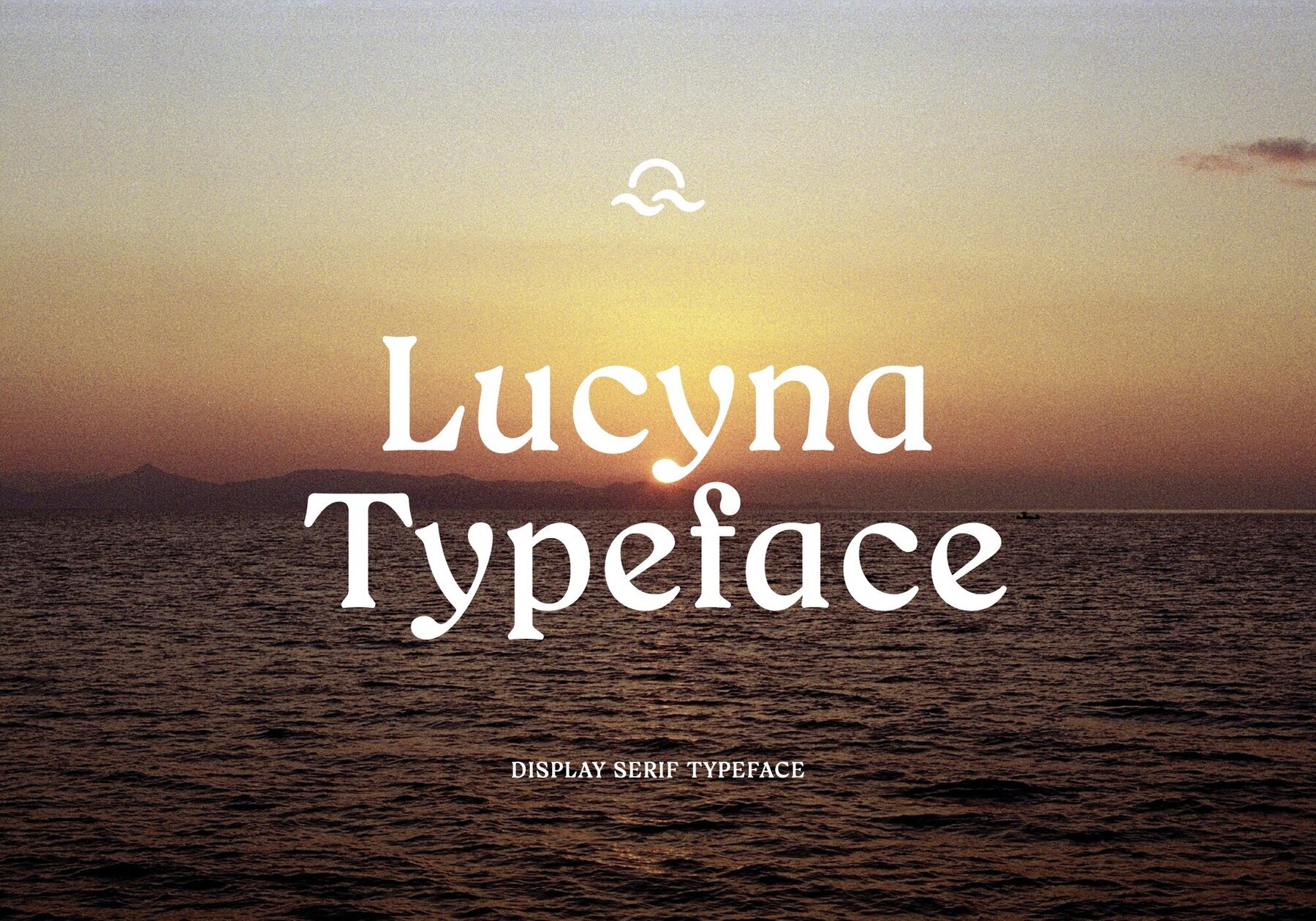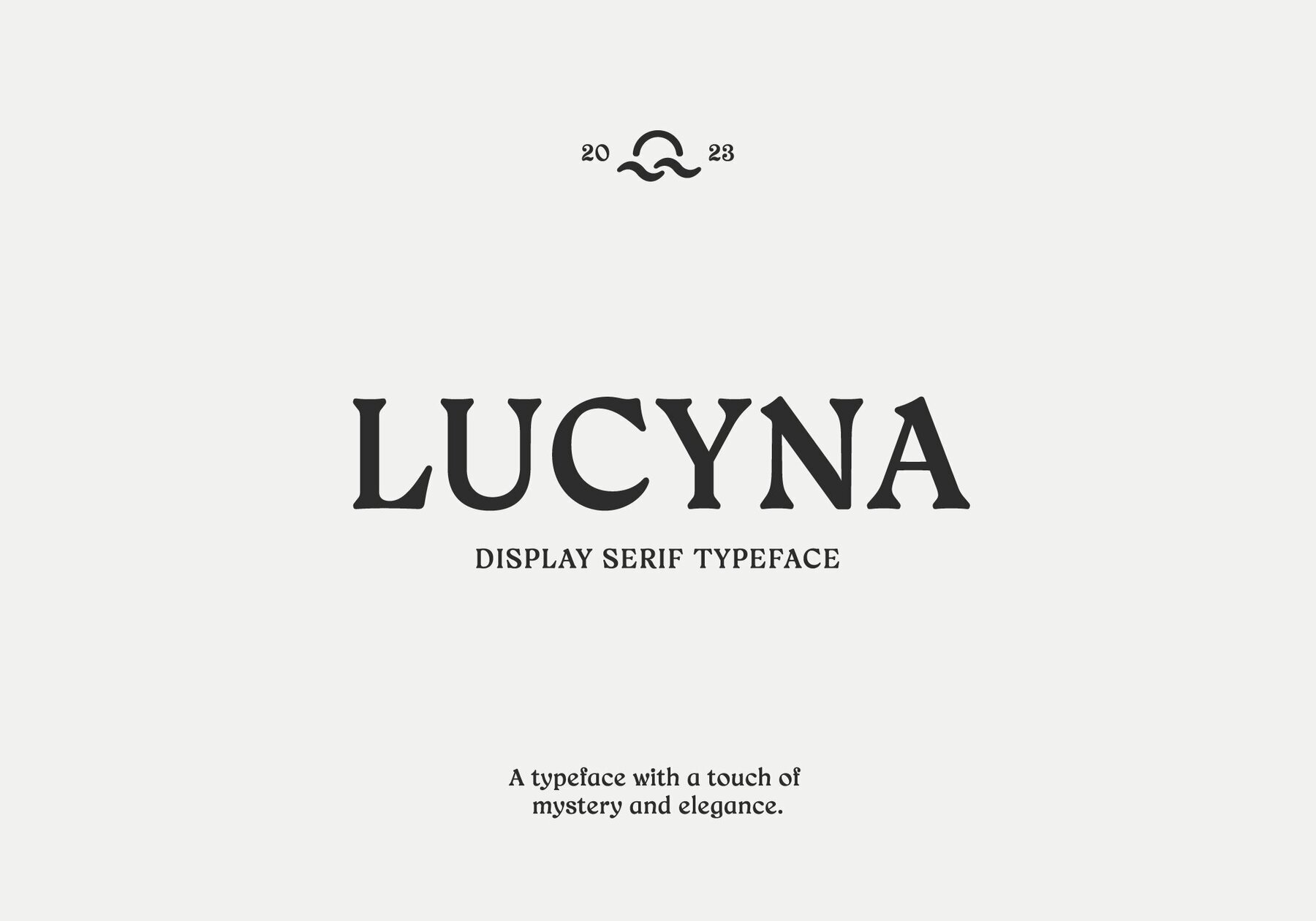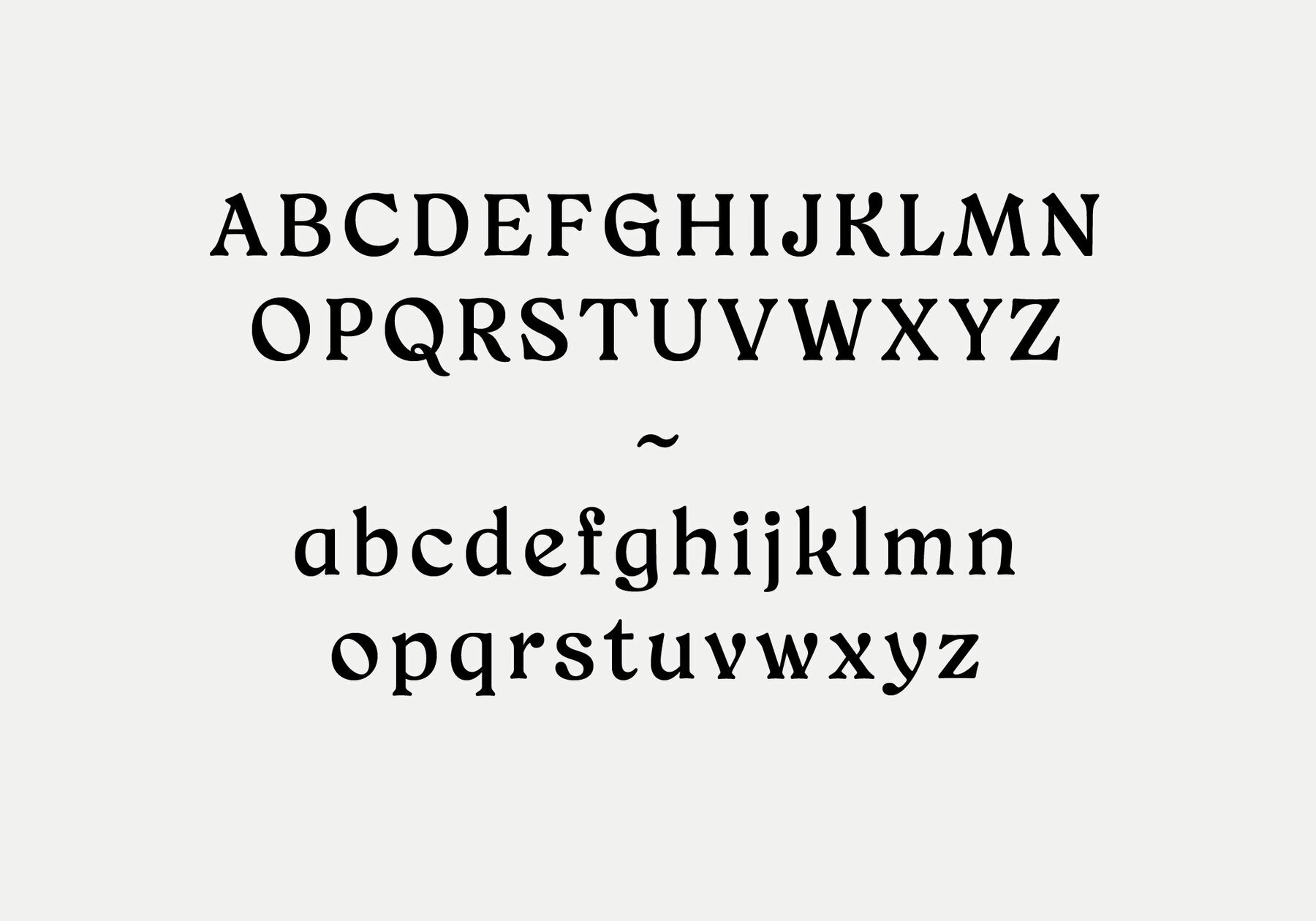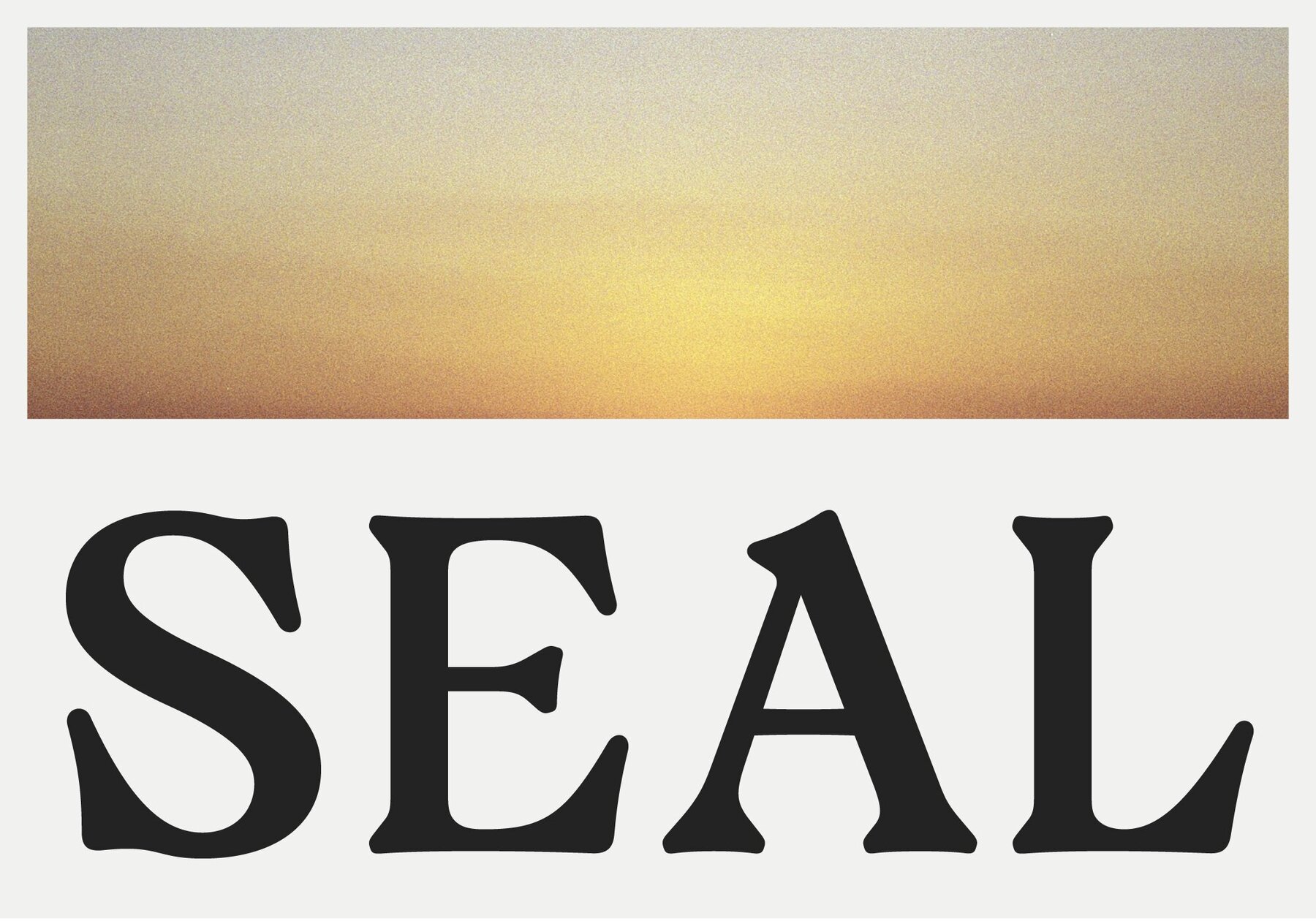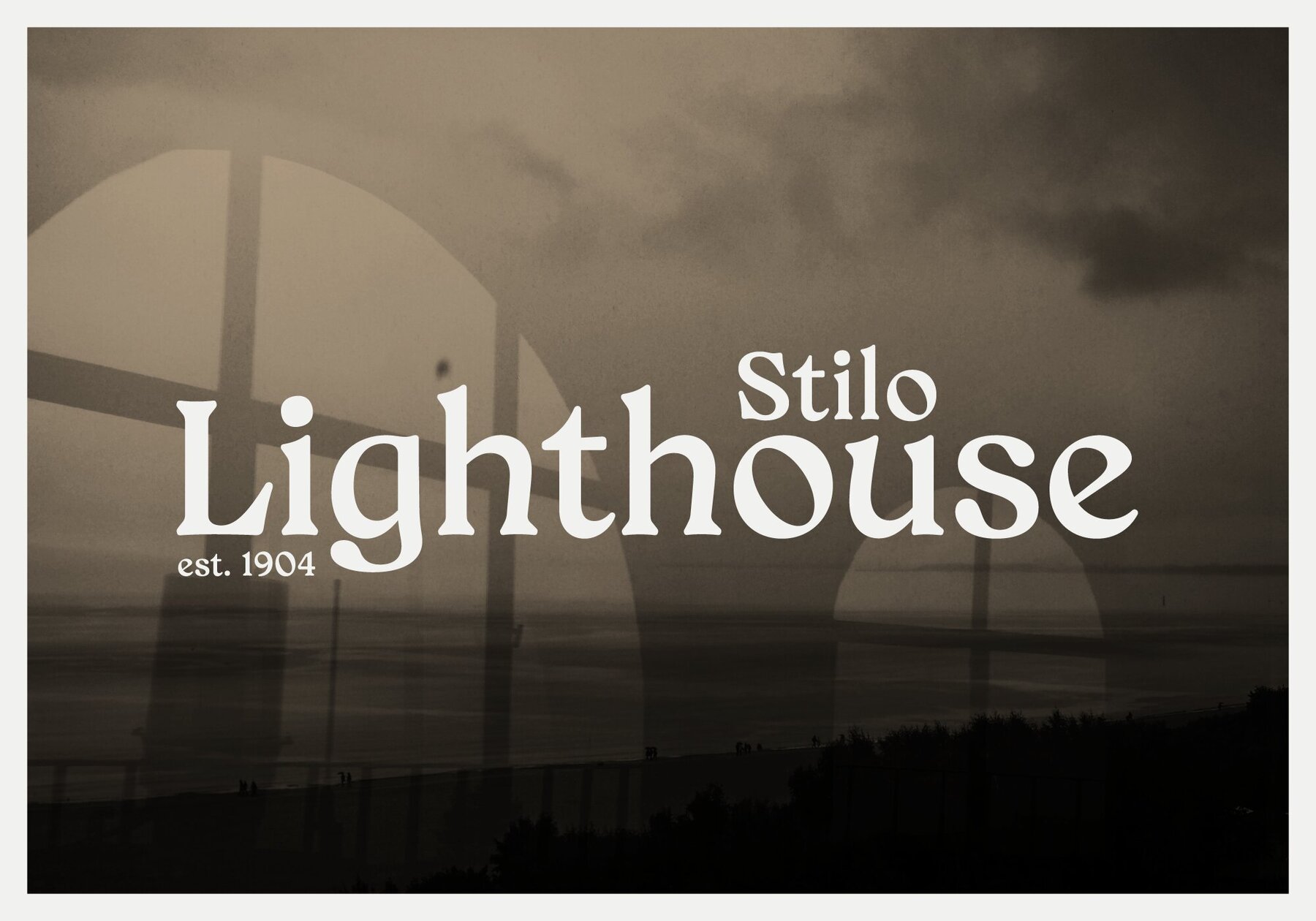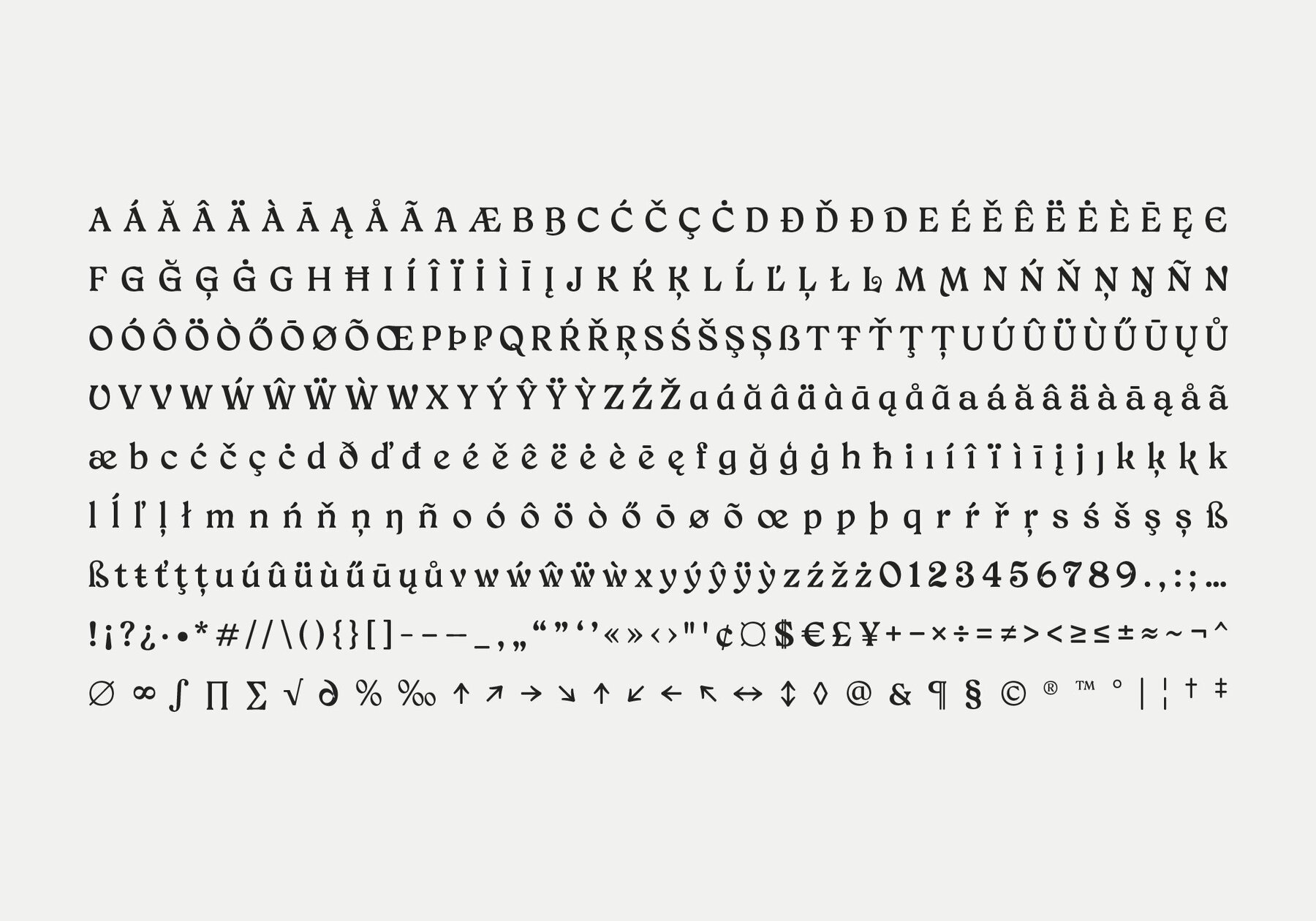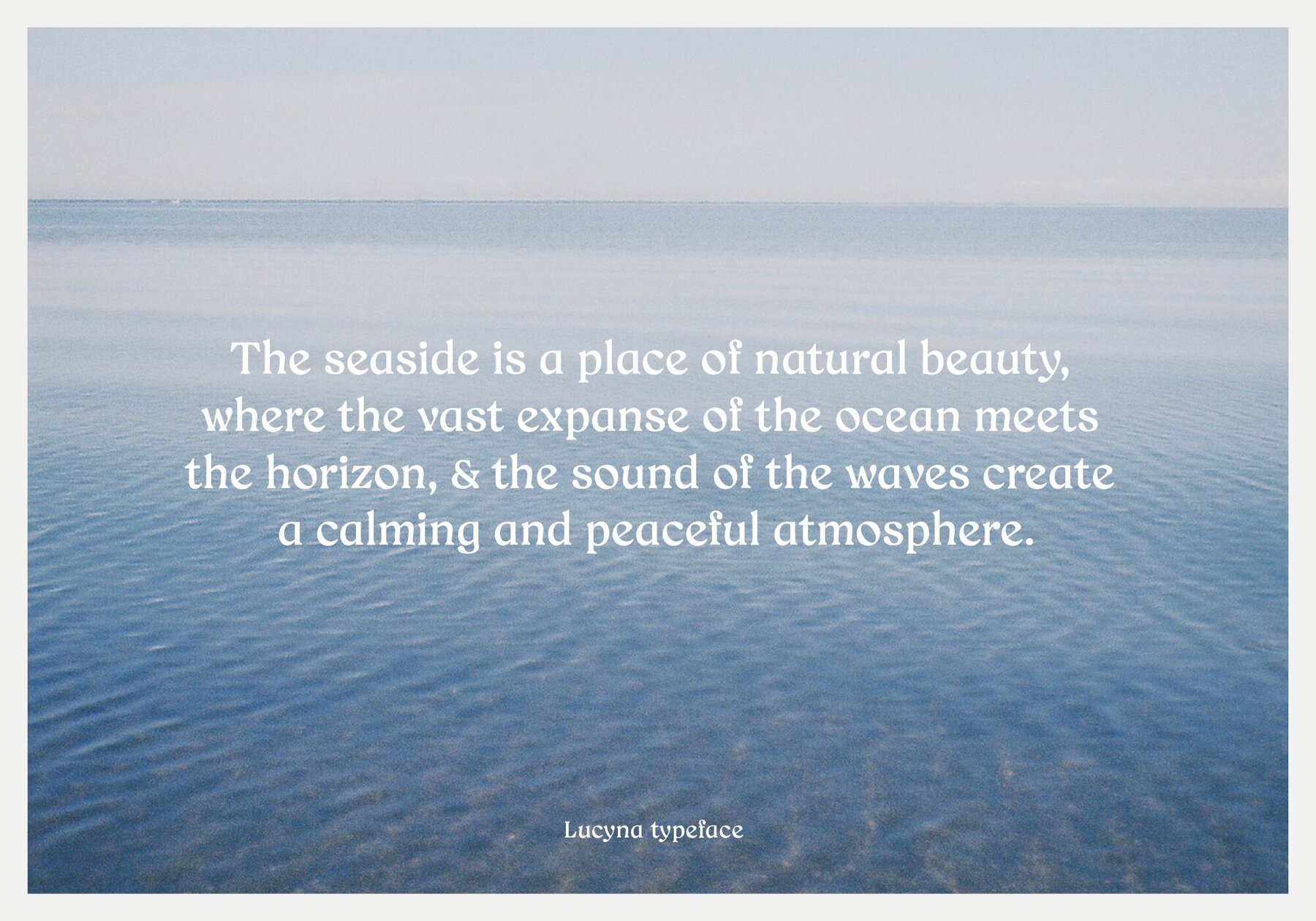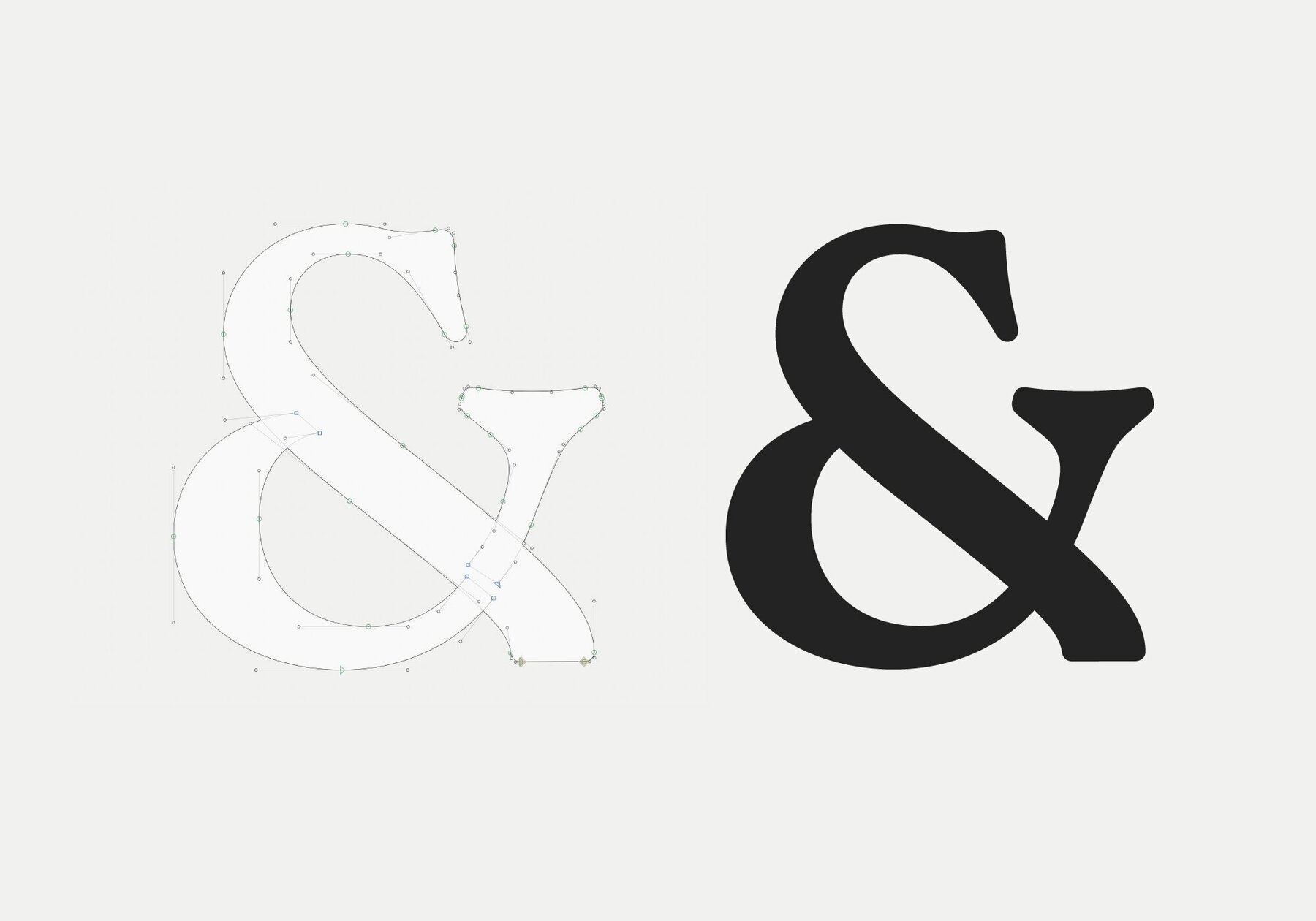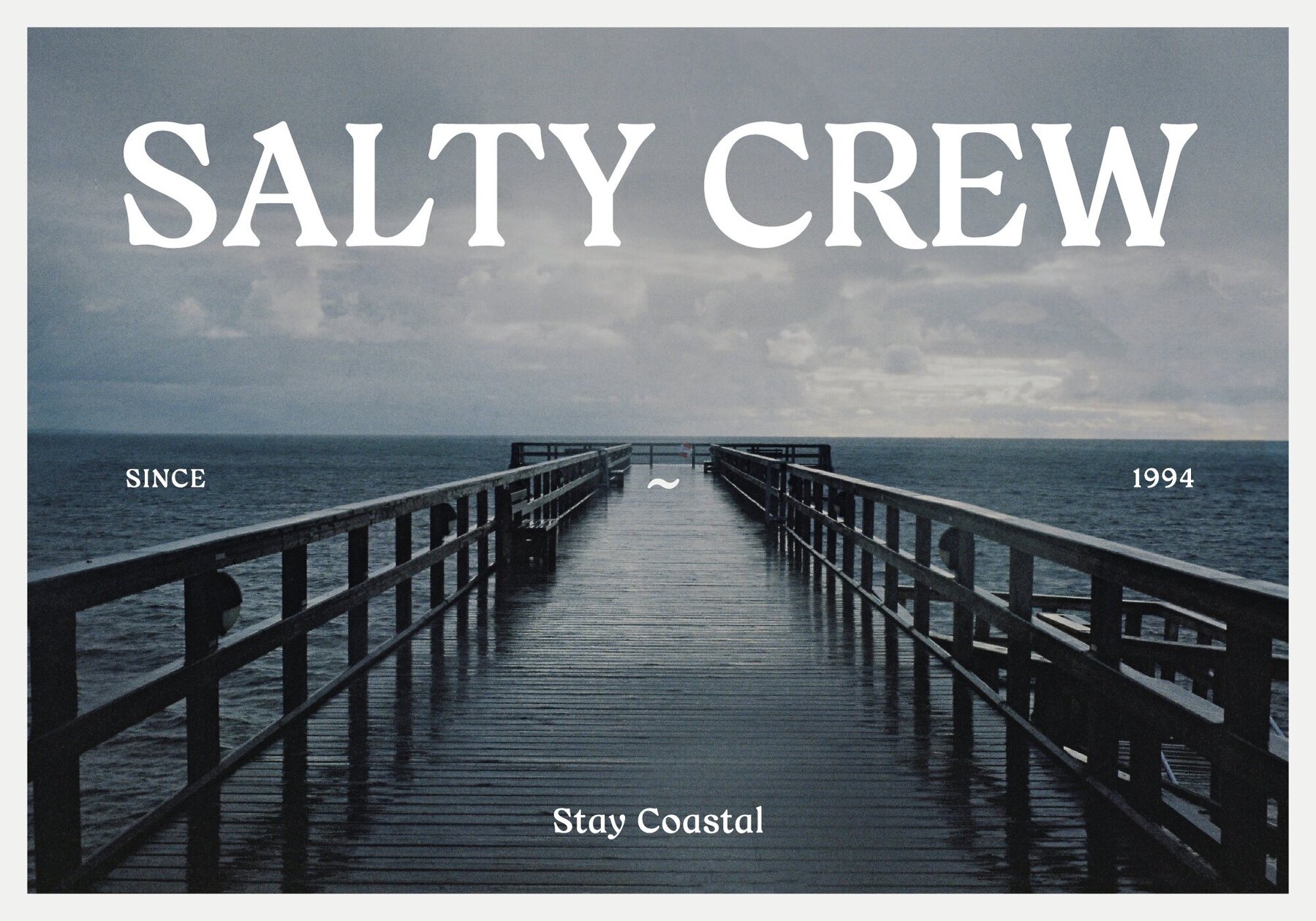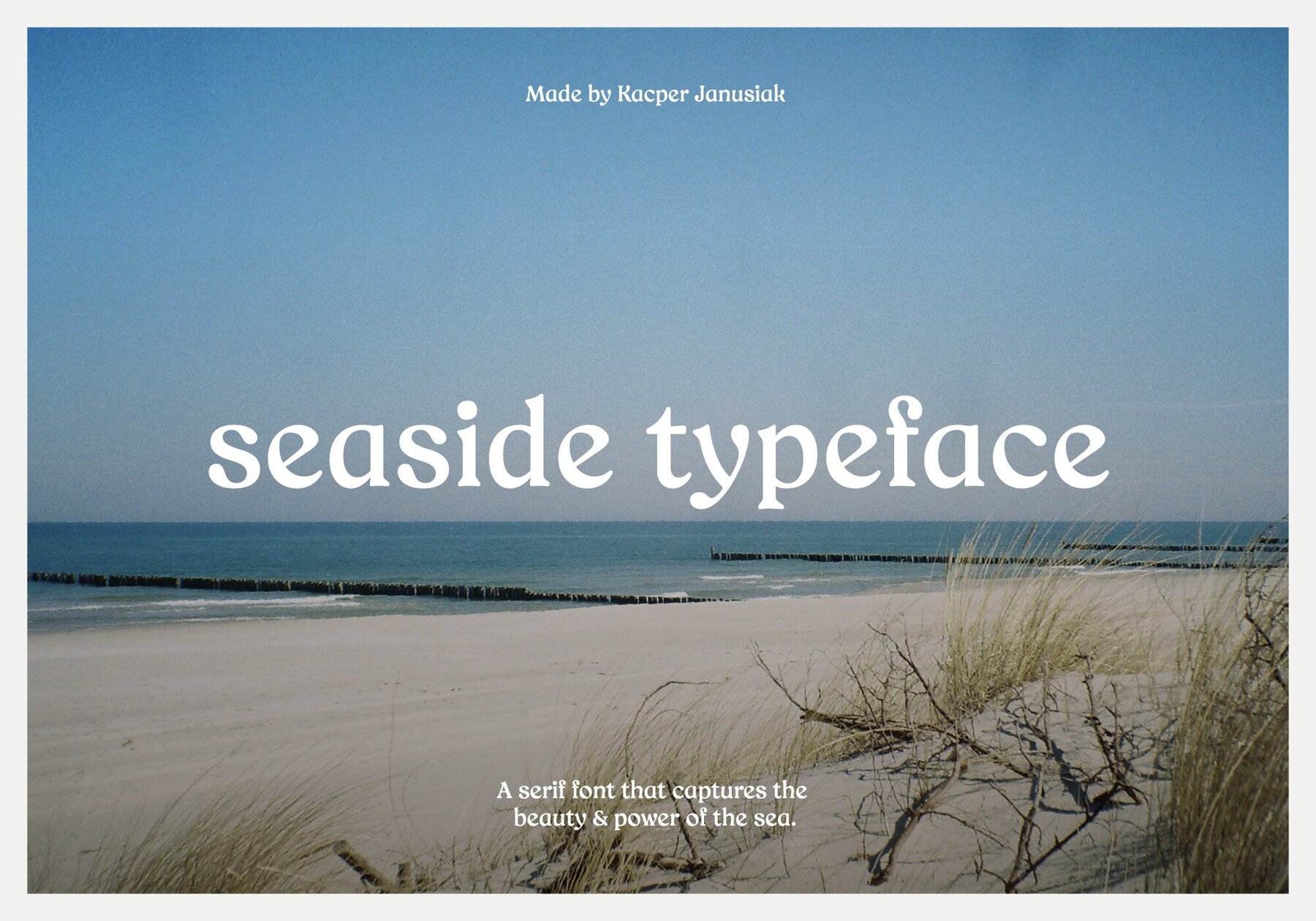
Lucyna Font
Lucyna Regular
Lucyna serif font is a stylish and sophisticated typeface that exudes elegance and refinement. The font's unique design, inspired by the natural beauty and fluidity of the sea, features clean and well-defined serifs that give it a distinctive and timeless character.
Kacper Janusiak, graphic designer specializing in font design, typography and branding. A graduate of the Warsaw Academy of Fine Arts.